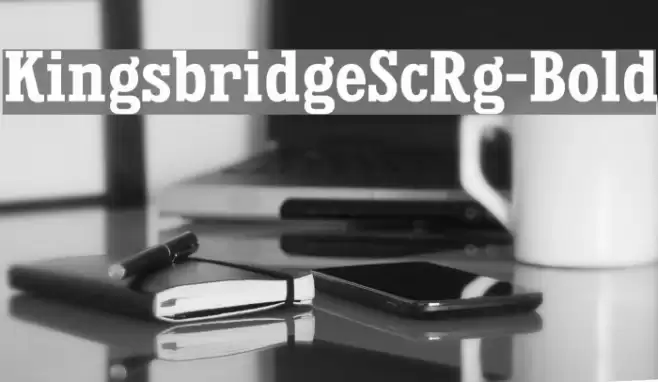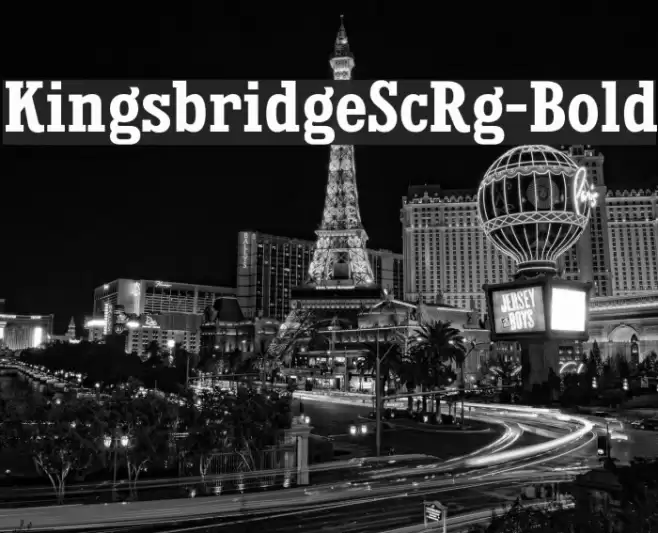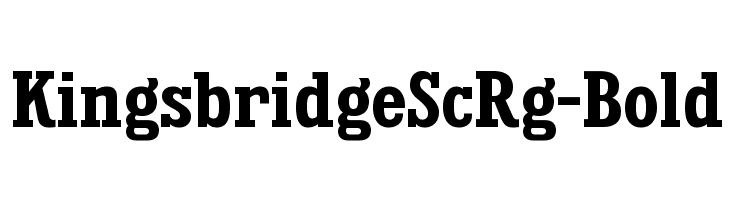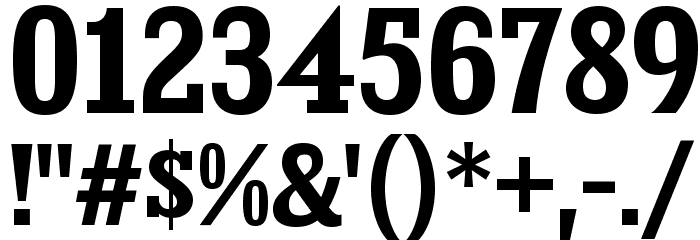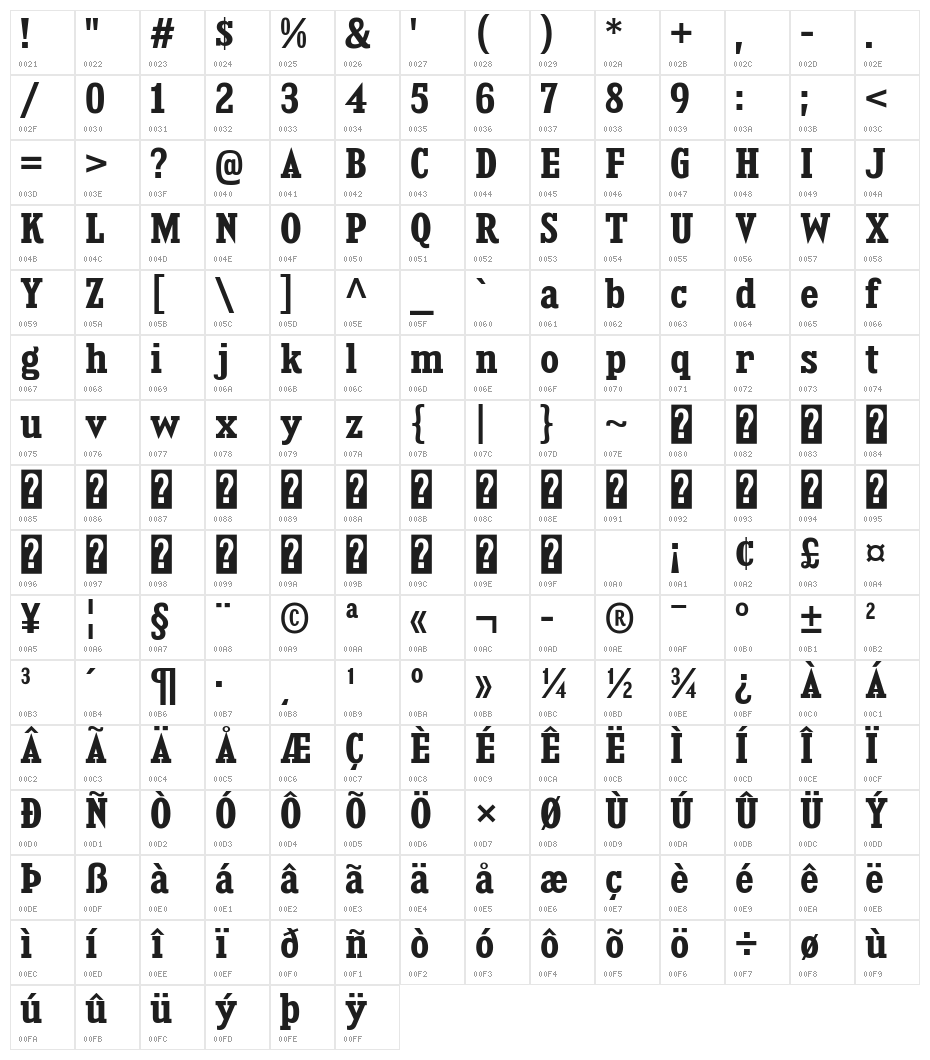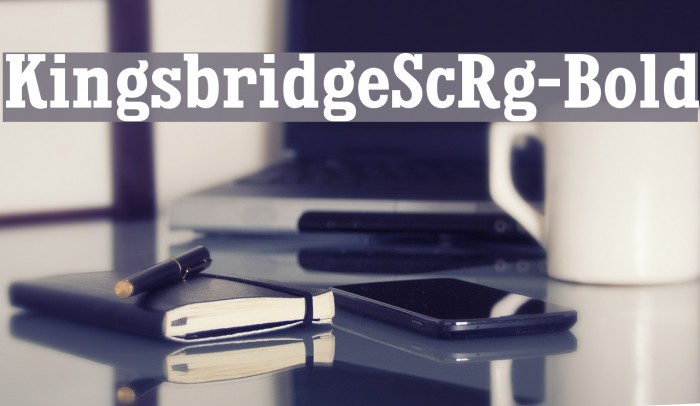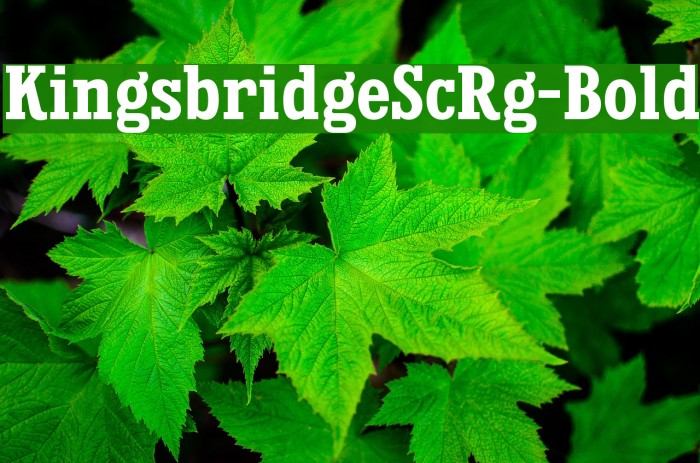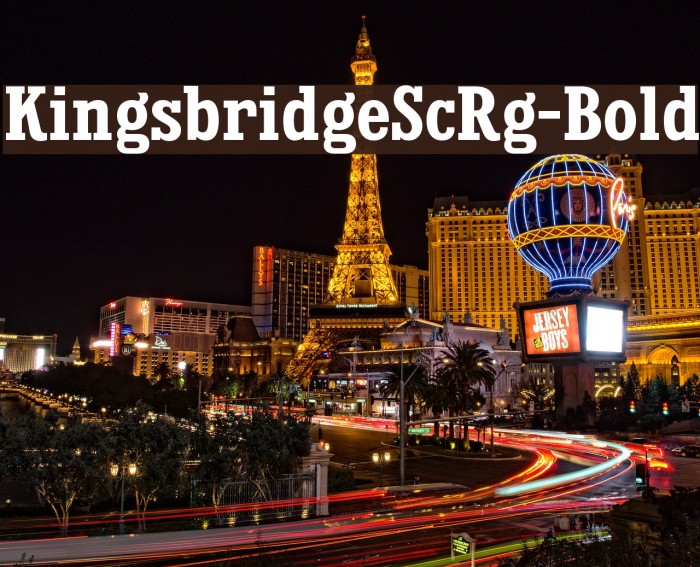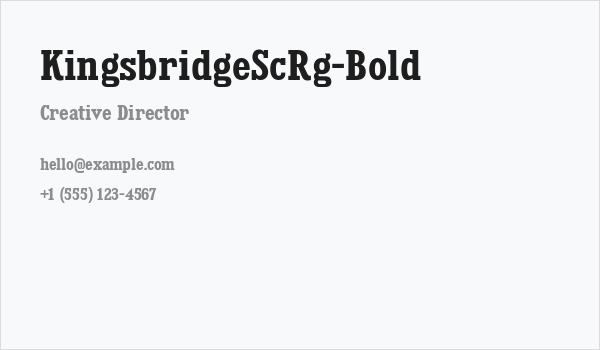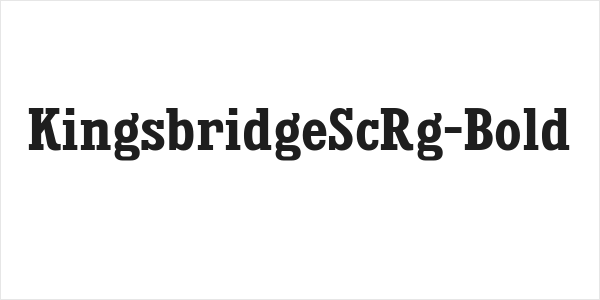
KingsbridgeScRg-Bold Font
KingsbridgeScRg-Bold Description
This font features a bold and commanding presence with its strong, slab serif design. The characters are well-defined with thick strokes and a robust structure, making it highly legible and impactful. The uppercase letters exhibit a classic, authoritative style, while the lowercase letters maintain a consistent and harmonious flow. The numerals are clear and distinct, ensuring readability in various contexts. The special characters are crafted with precision, adding to the font's versatility. Overall, this font exudes a sense of strength and reliability, suitable for a wide range of applications.
A bold slab serif font with strong, well-defined characters from Serif fonts.
- Proposed Projects: Ideal for headlines, posters, branding, and any project requiring a bold, authoritative typeface.
- Overall Style: Classic